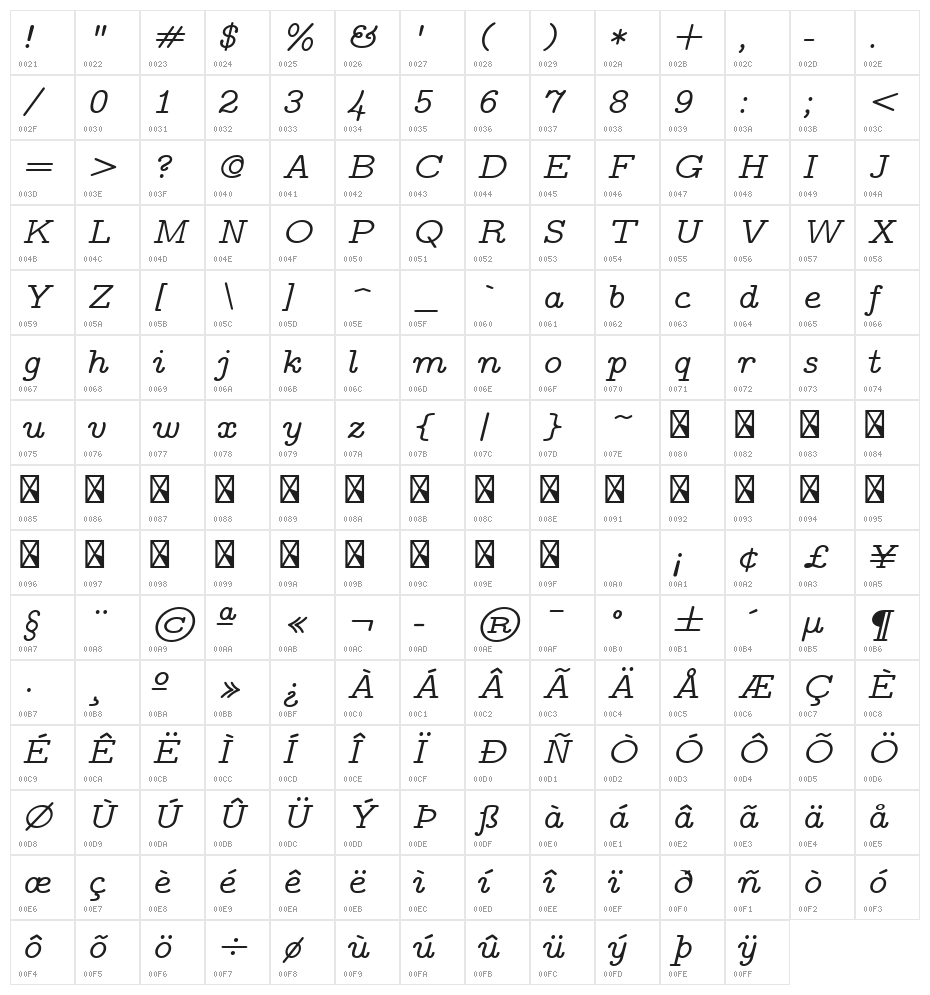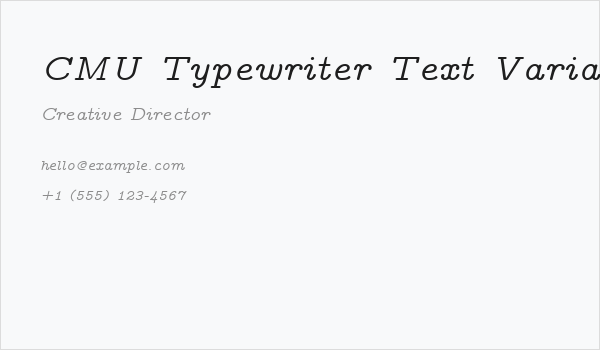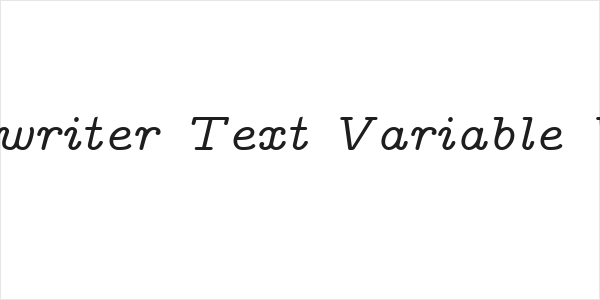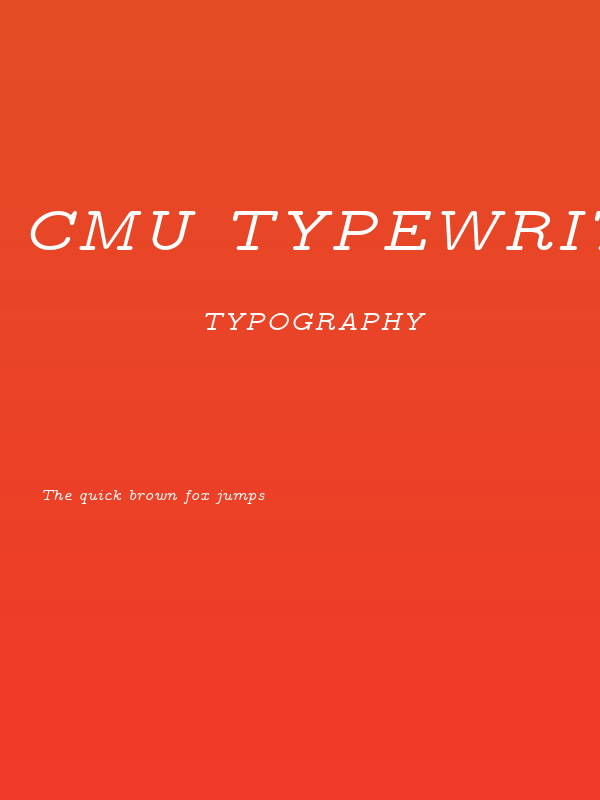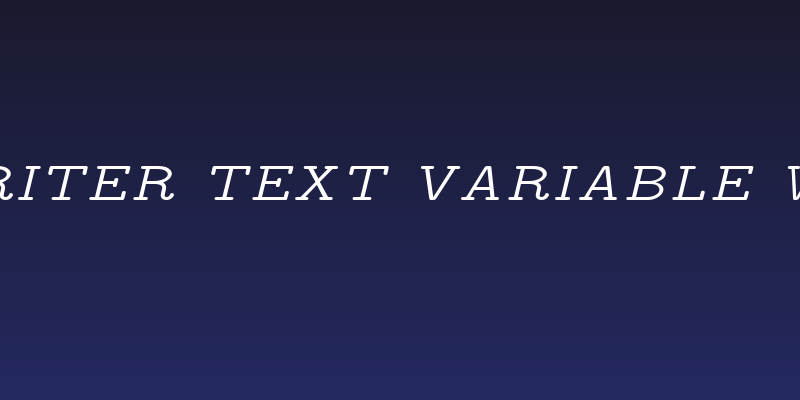
CMU Typewriter Text Variable Width Italic Font
CMU Typewriter Text Variable Width Italic Description
This typeface features a classic typewriter style with a modern twist, characterized by its italicized form. The letters have a distinct slant, adding a dynamic and fluid appearance. The font maintains a variable width, giving it a unique, non-uniform look that mimics traditional typewriter text. The characters are well-defined with a slight curvature, especially noticeable in the lowercase letters, which enhances readability. The numerals are clear and consistent, while the special characters are elegantly integrated, maintaining the overall aesthetic. This font combines the nostalgic feel of typewriter fonts with a contemporary flair, making it versatile for various design needs.
| Proposed Projects | Ideal for projects that require a vintage or retro feel, such as creative writing, typewriter-themed designs, or artistic projects. It can also be used in digital media to evoke nostalgia or in branding for products that want to convey a sense of traditio |